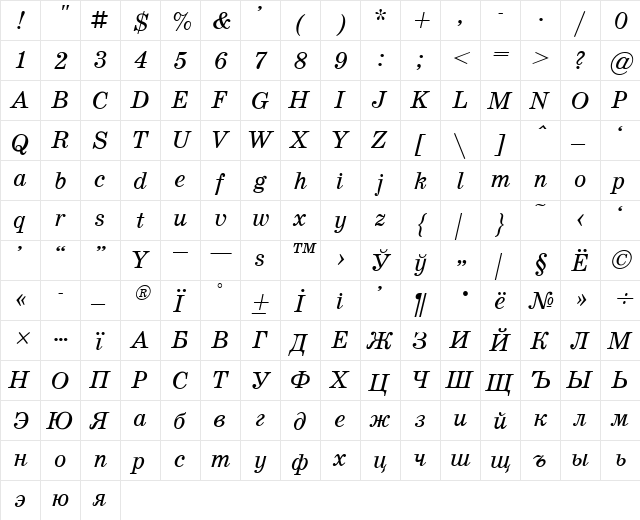
School Italic
Design Context for School Typeface
School offers clean, dependable letterforms without strong stylistic allegiance, making it a practical choice for designers who need flexibility. The slanted form adds forward momentum and visual energy.
Pro Tip: Use School for emphasis, pull quotes, and subheadings where its slanted energy can add rhythm to the layout.